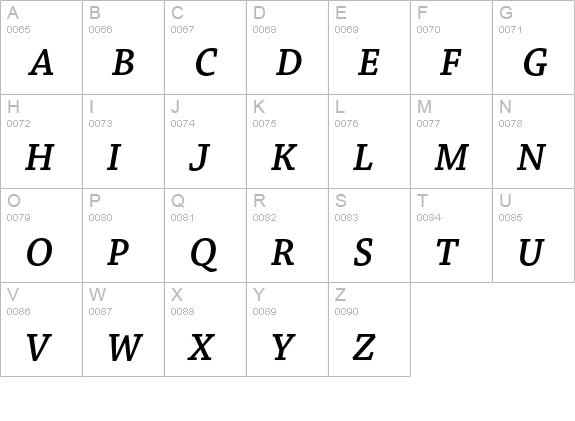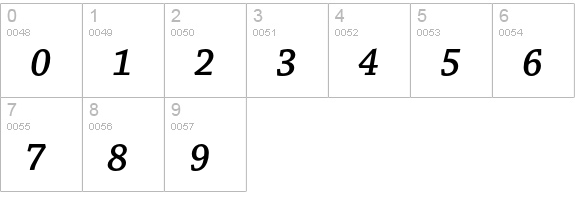
Chaparral Pro Semibold Italic is a sub-bold, structured, italic variant in the Chaparral typeface family \xE2\x80\x94 well suited to sub-headlines and emphasised passages.
Chaparral Pro Semibold Italic is a sophisticated and stylish font that exudes elegance and modernity. With its bold yet graceful curves and slanted design, this typeface is perfect for adding a touch of sophistication to any project. The combination of a semi-bold weight and italic style creates a dynamic and eye-catching look that is sure to make a statement. What's even better is that Chaparral Pro Semibold Italic is available for free download at FontsMarket.com. This means that you can easily access this high-quality font without any cost, making it a fantastic choice for designers, creatives, and anyone looking to elevate their designs with a touch of class. Don't miss out on the opportunity to enhance your projects with this stunning font, download Chaparral Pro Semibold Italic for free today!